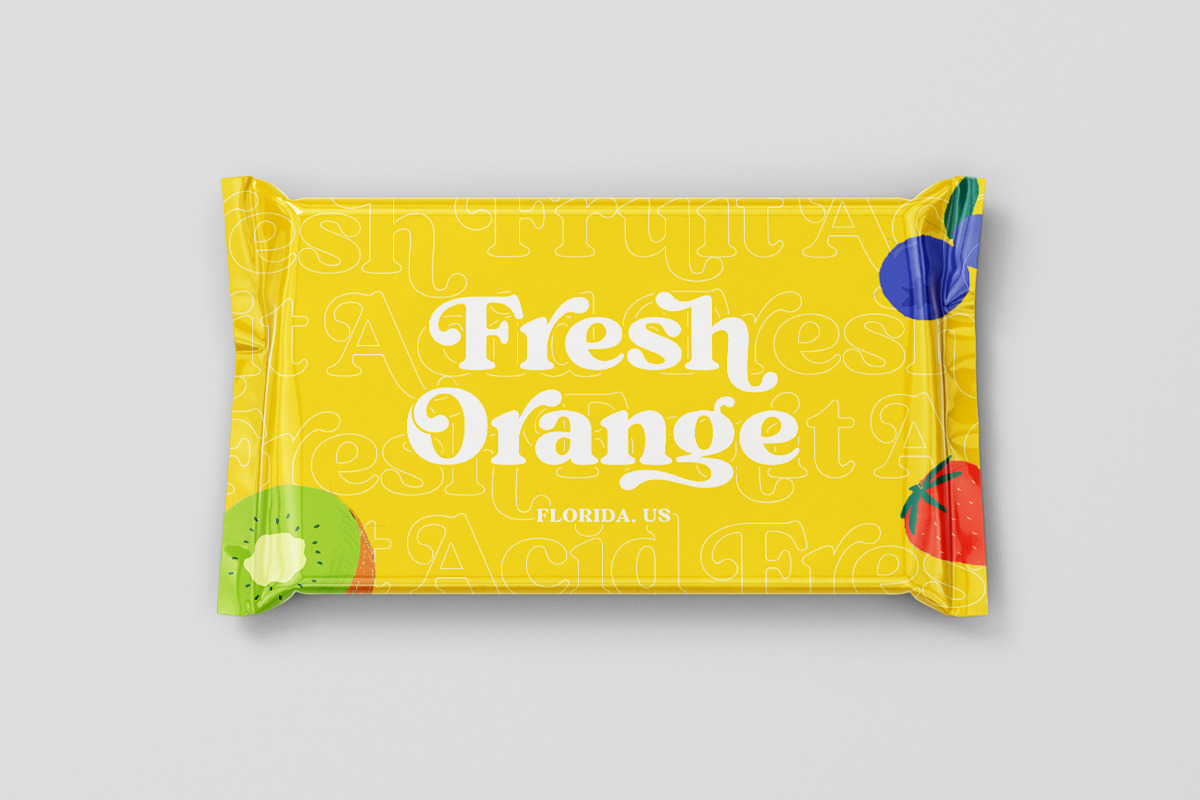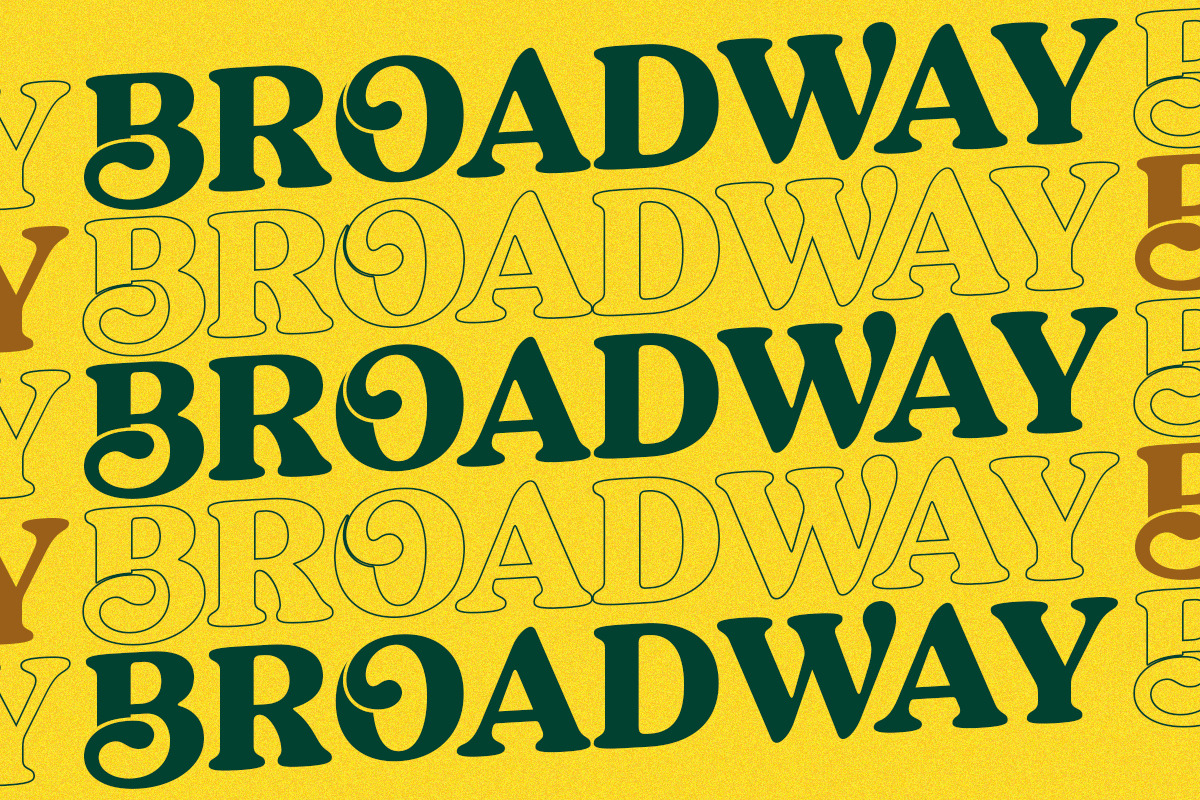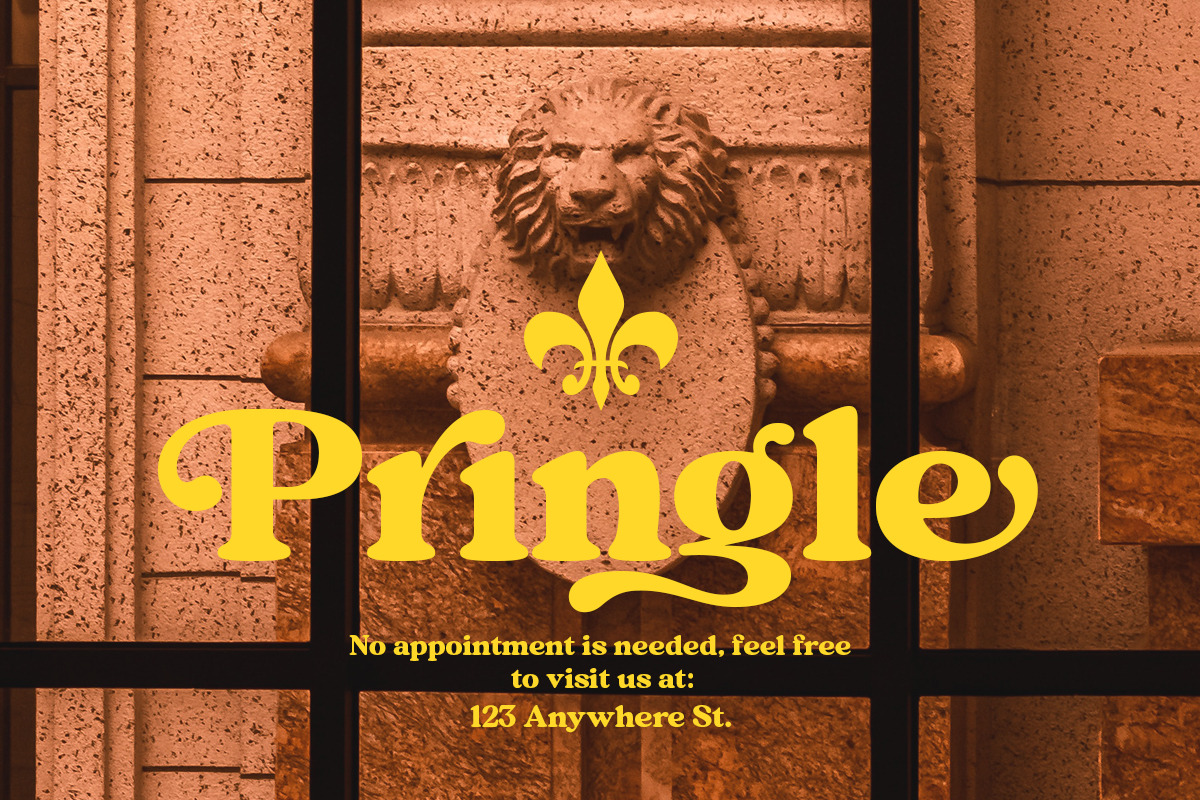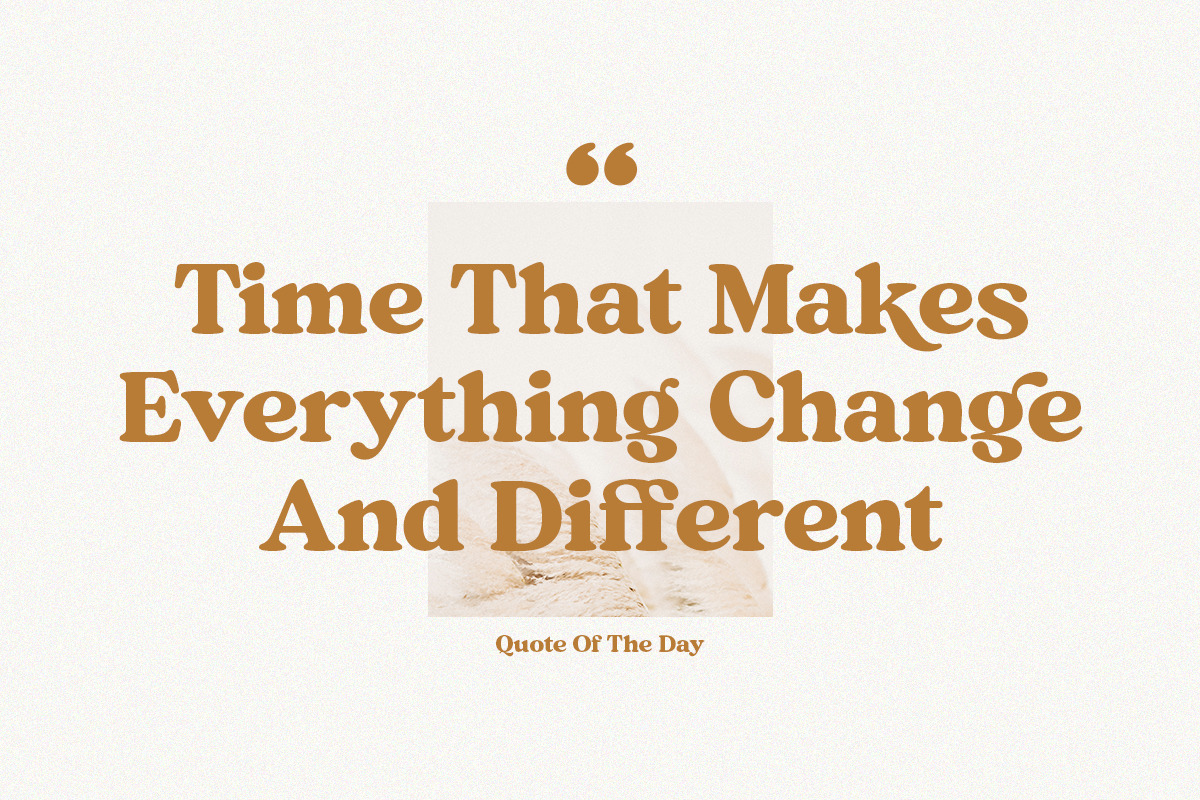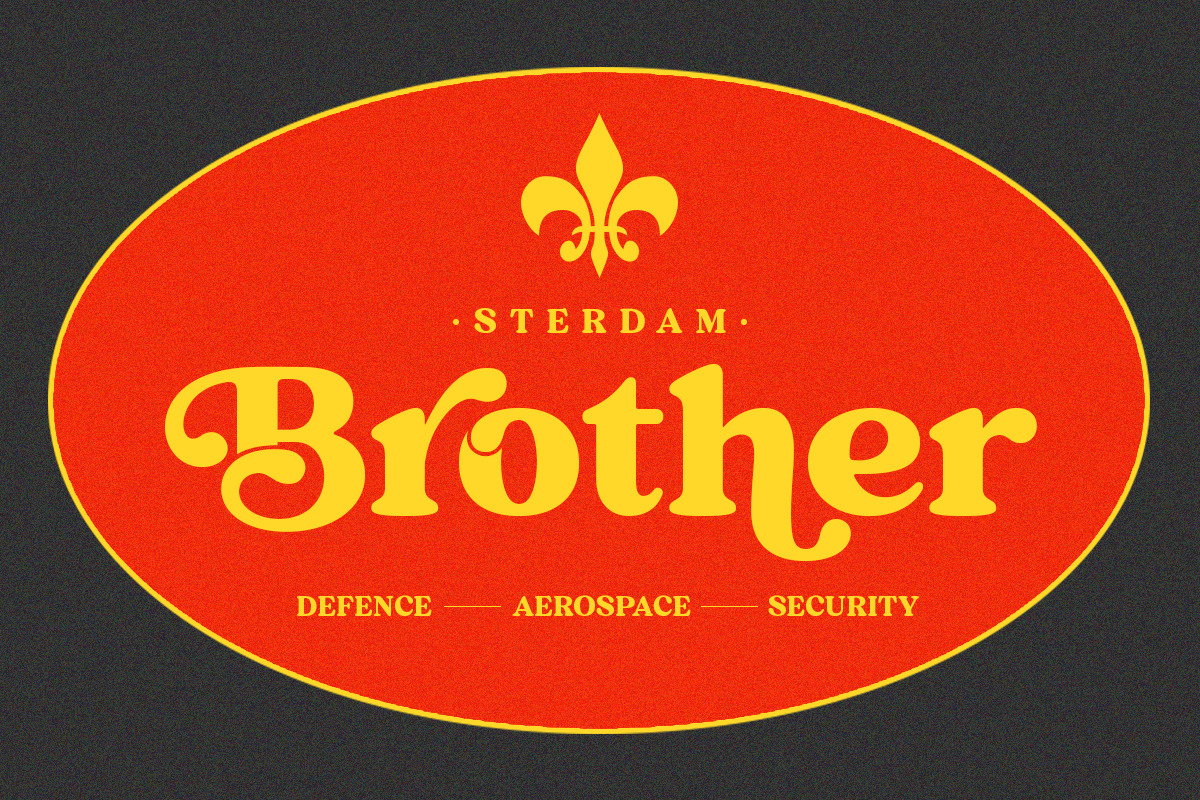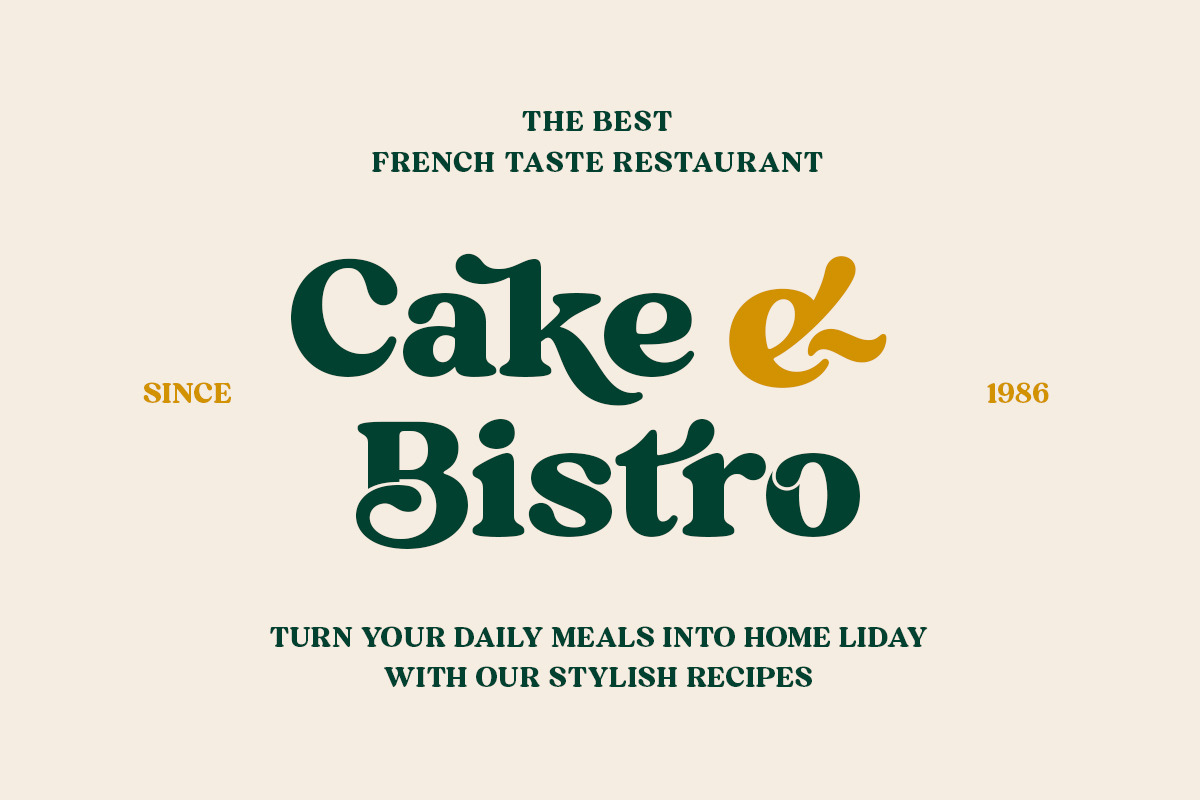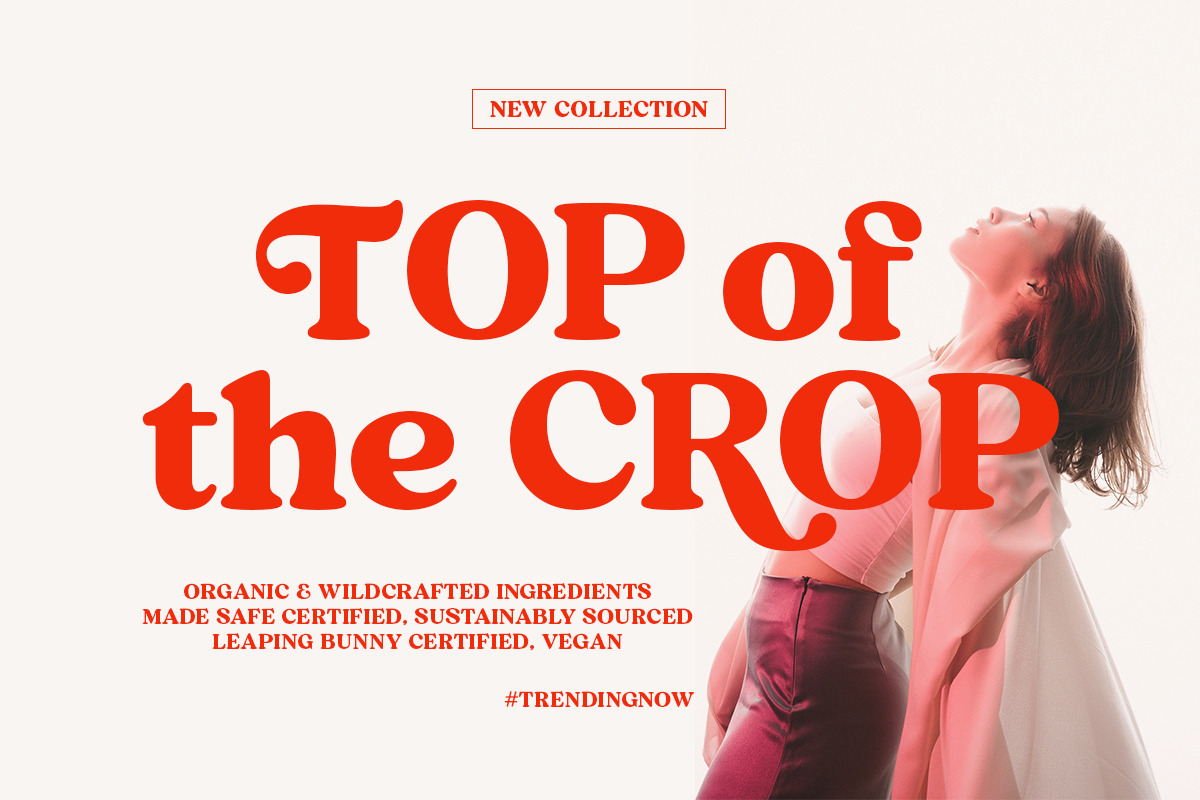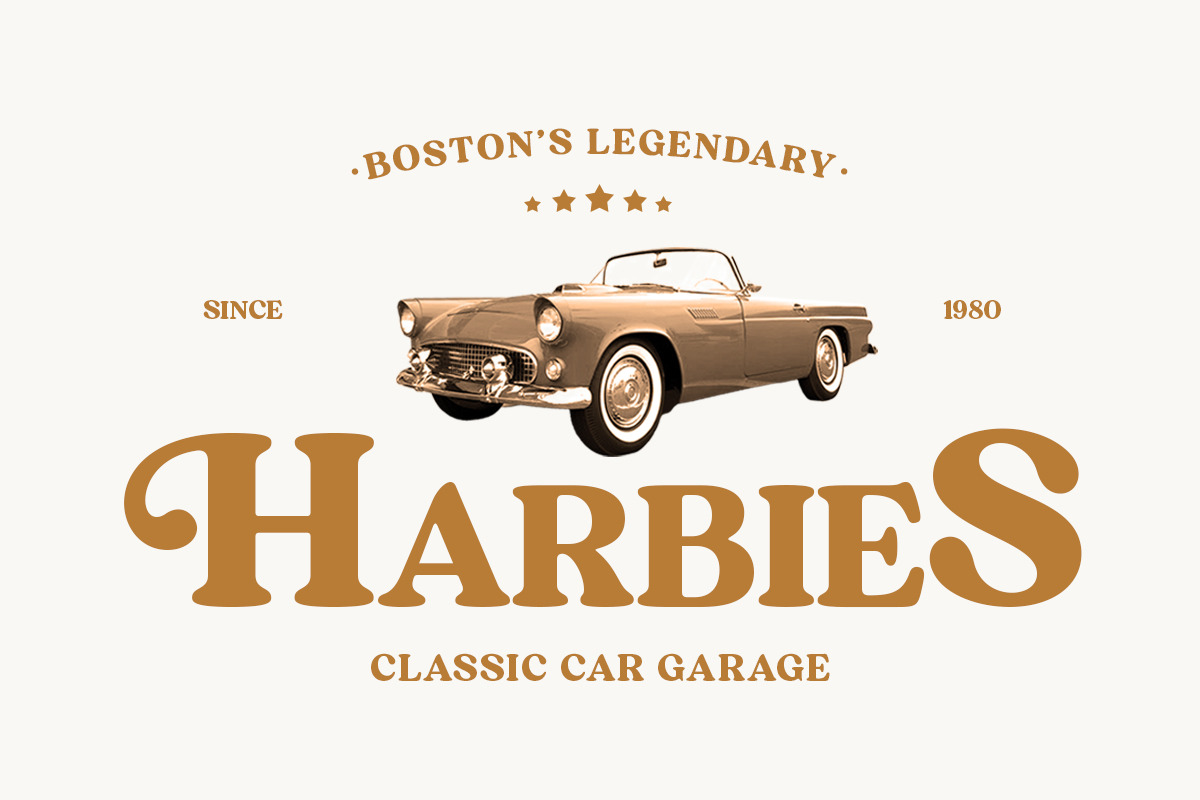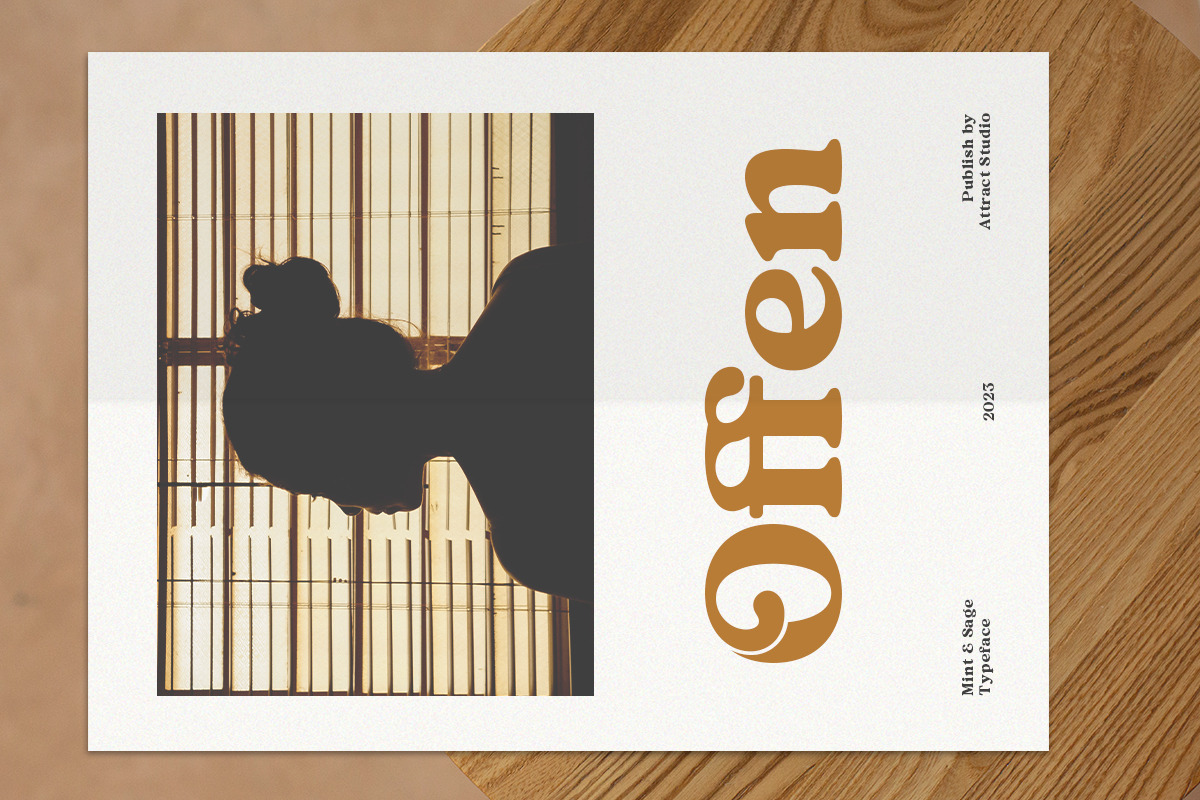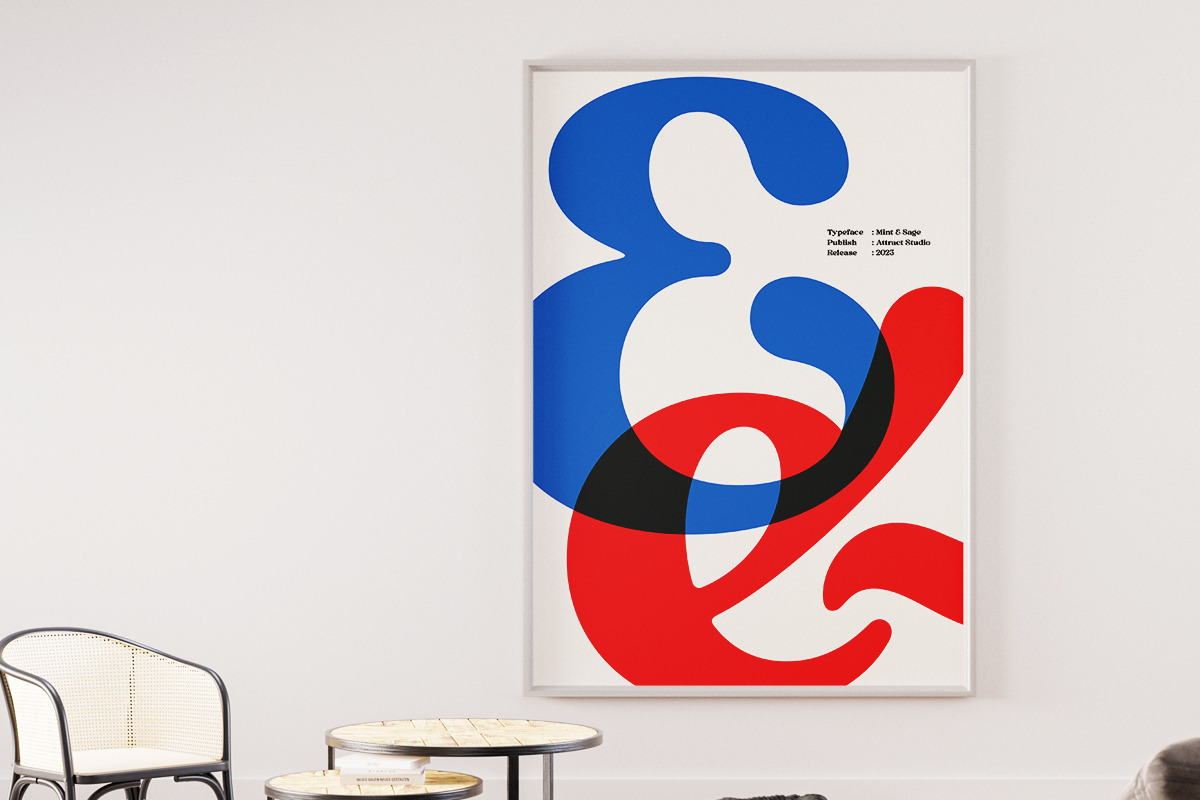
Mint And Sage
Mint And Sage is a nostalgic typeface modernized from the old style serifs of the sixties and seventies. With soft serifs suitable for many projects: invitations, postcards, posters, books, advertisements, websites, blog headers, logos, branding, magazines, fashion, photography, editorial design and many others.
Typeface Features:
- 3 Font Weights (Regular, Outline & Extrude)
- Stylistic Alternates & Ligatures